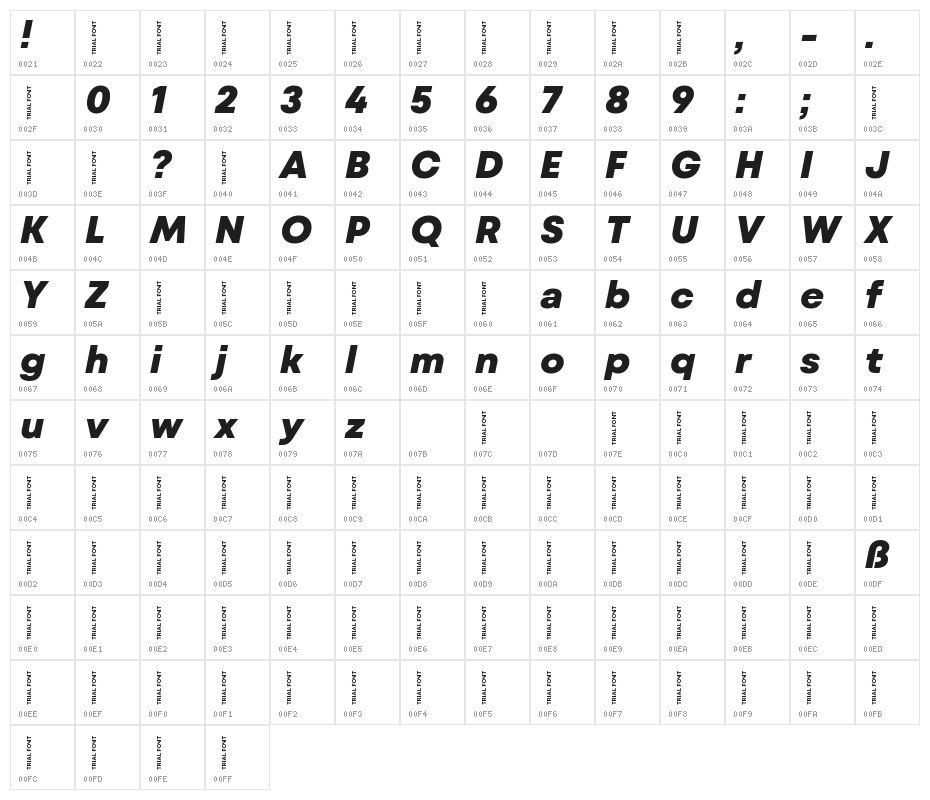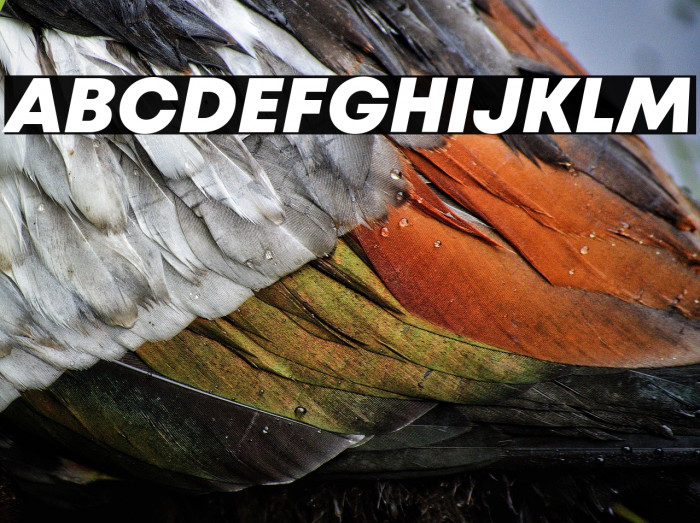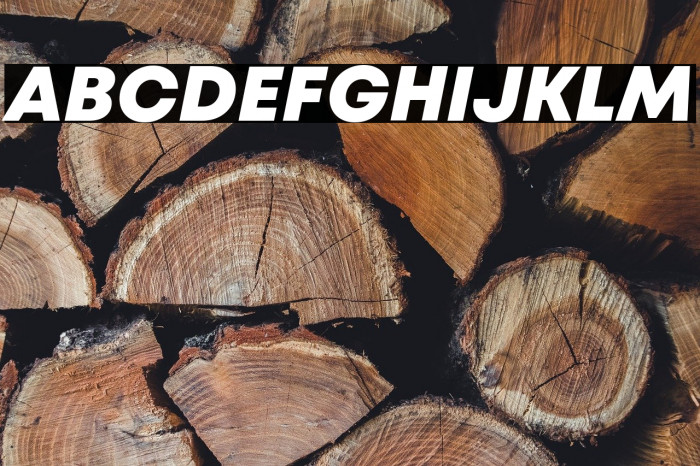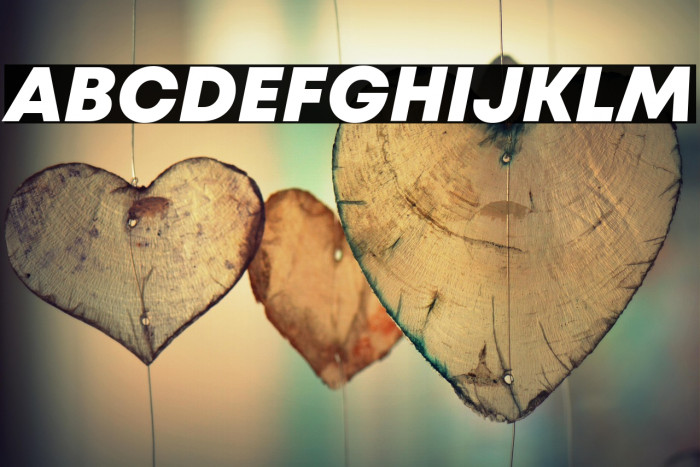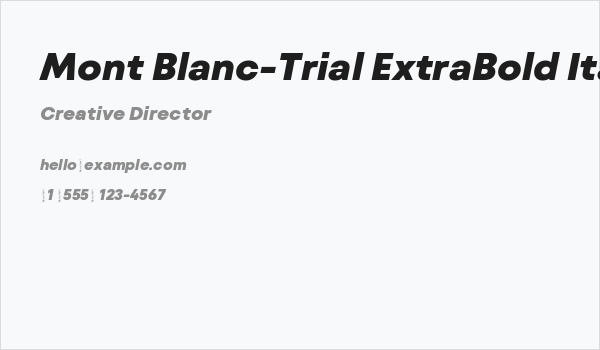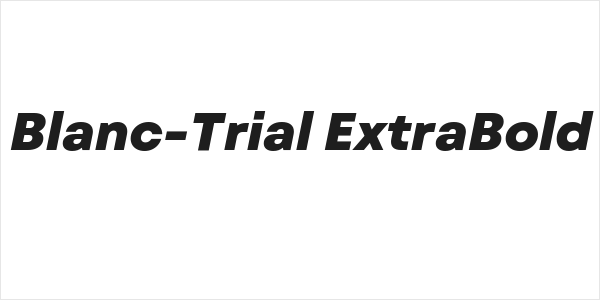
Mont Blanc-Trial ExtraBold Italic Font
Mont Blanc-Trial ExtraBold Italic Description
This font exhibits a bold and dynamic presence with its extra bold weight and italic style. The characters are designed with a modern sans-serif aesthetic, featuring smooth curves and a slight slant that adds a sense of motion and energy. The uppercase and lowercase letters maintain a consistent style, ensuring readability and visual appeal. The numerals are robust and clear, making them suitable for impactful displays. Special characters are included, maintaining the overall bold and italicized theme. The font's design is versatile, making it suitable for a variety of creative projects.